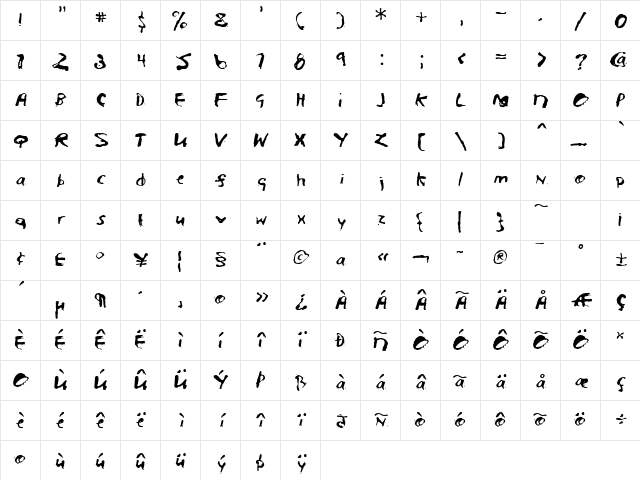
InAscorbicAcid Regular
Design Context for InAscorbicAcid
InAscorbicAcid is a composed and adaptable typeface that performs quietly and consistently across a wide range of design contexts.